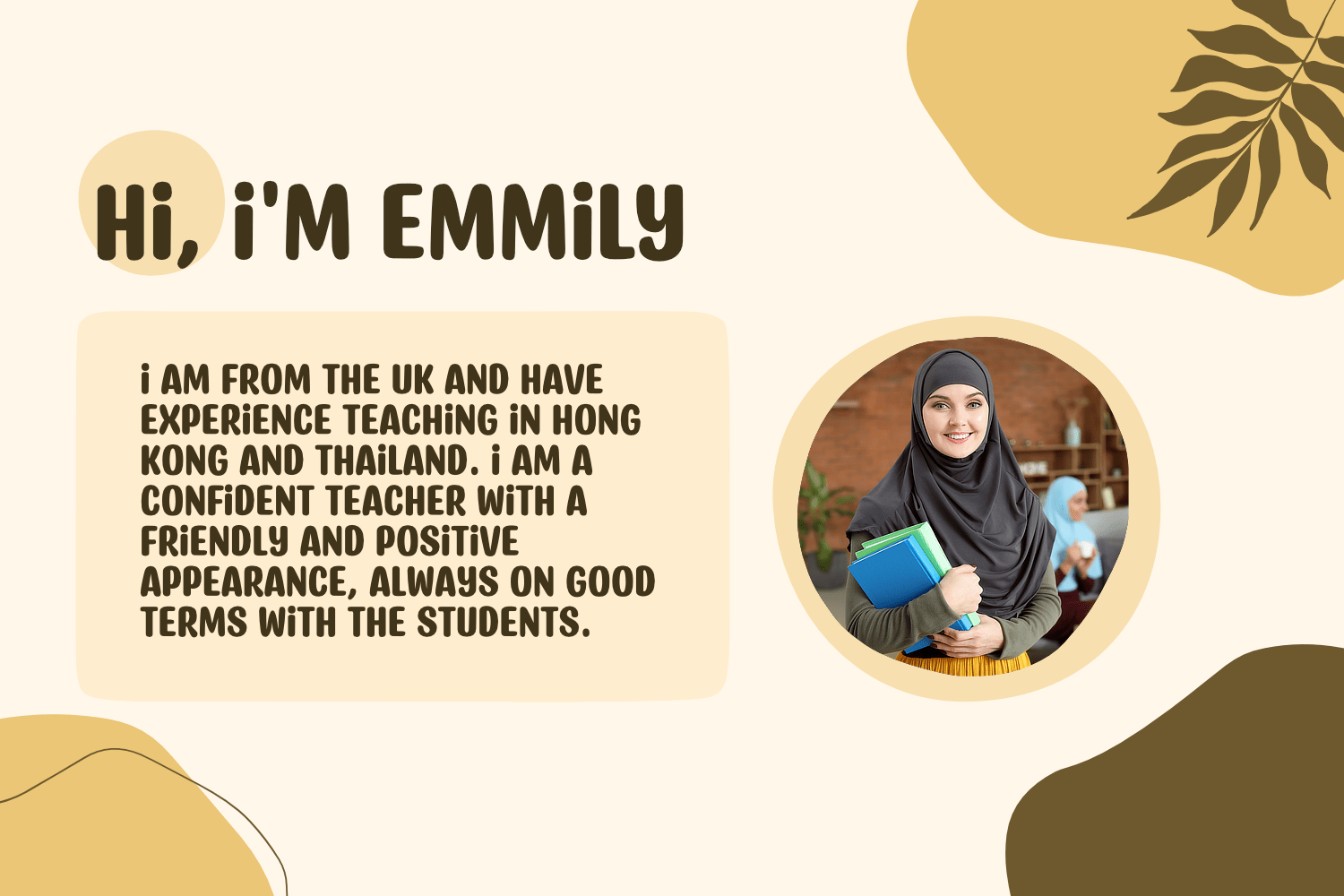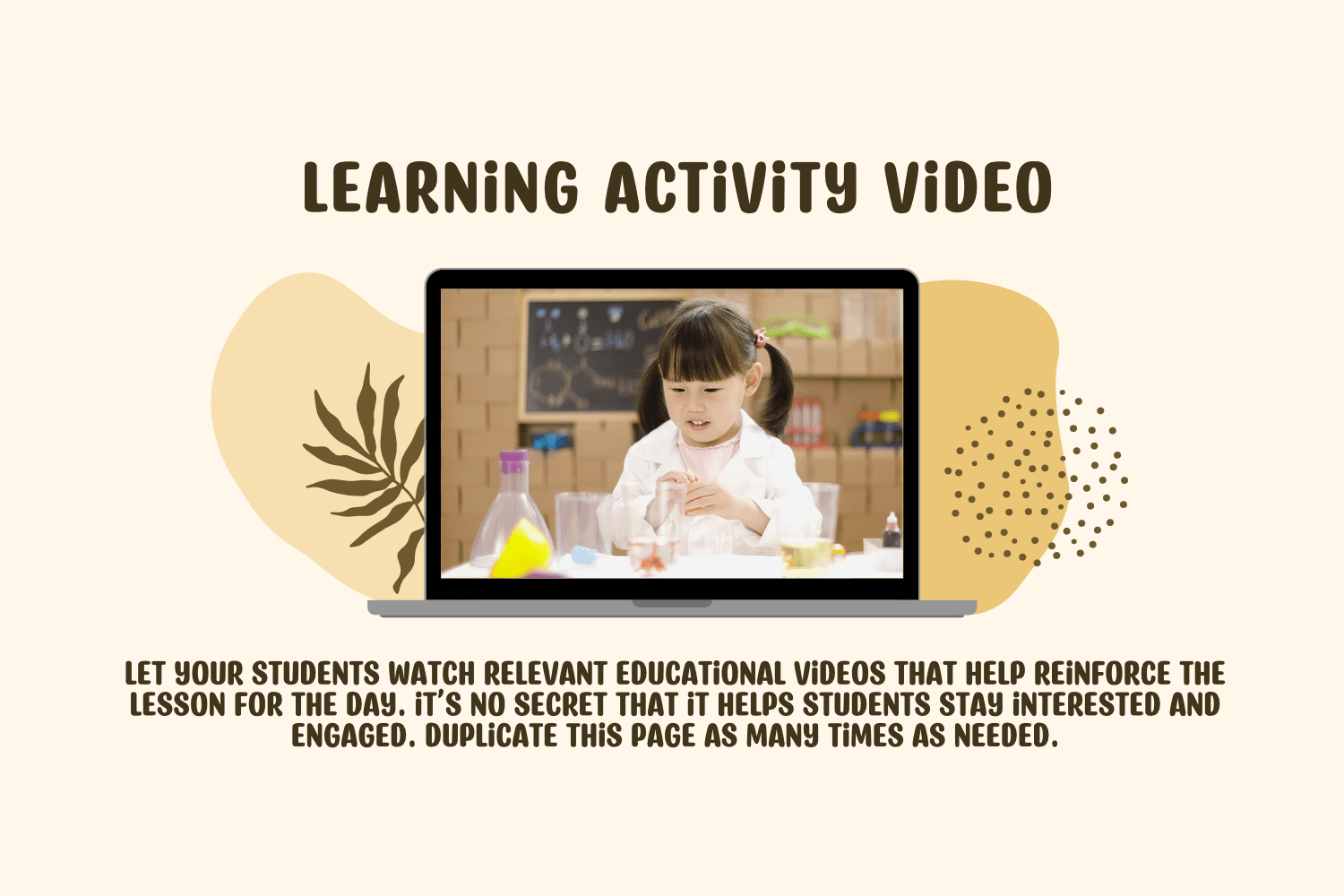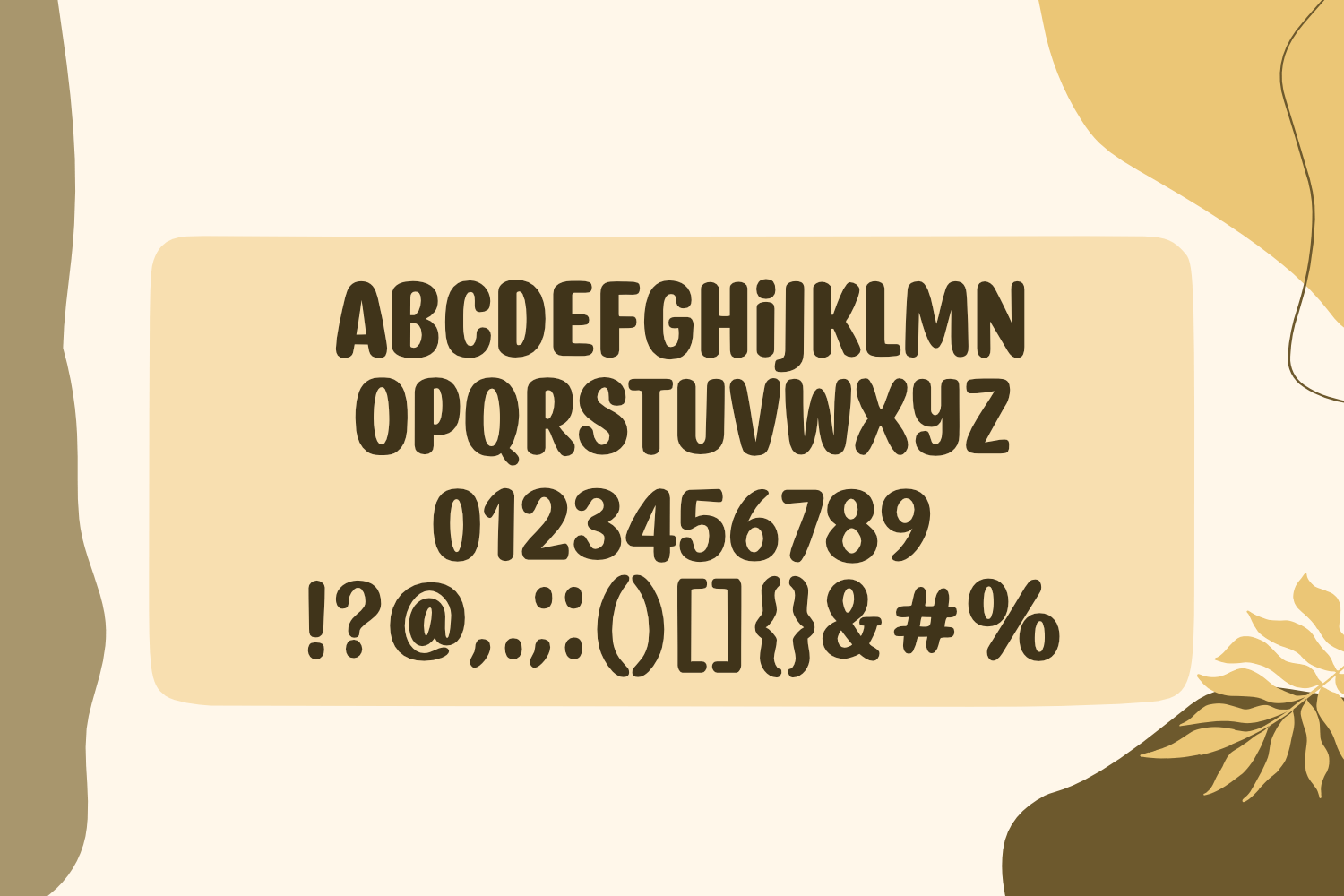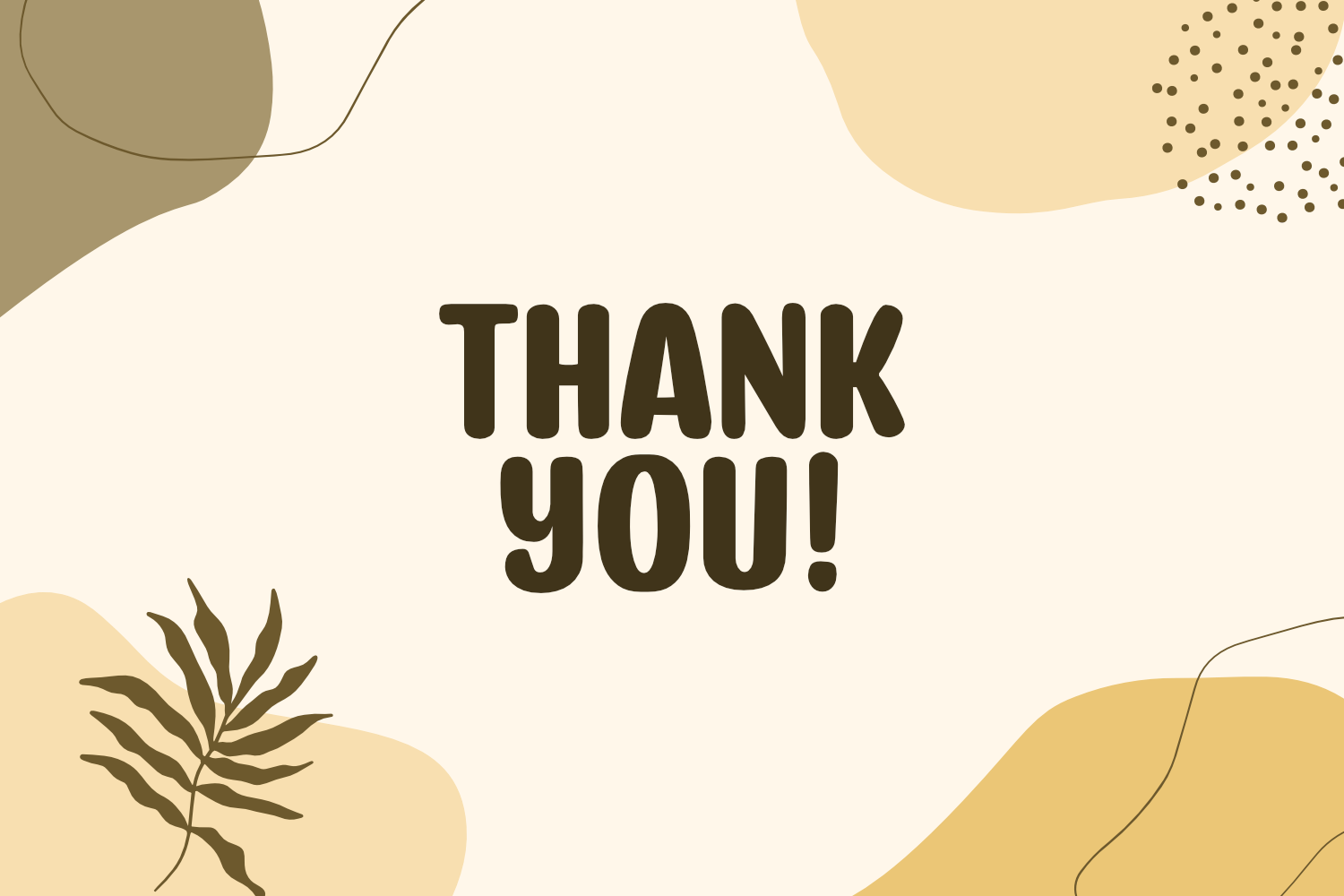
Quietly Endure Display Font
This is a rough textured and cool display font. No matter the topic, this font will be an incredible asset to your fonts’ library, as it has the potential to elevate any creation.